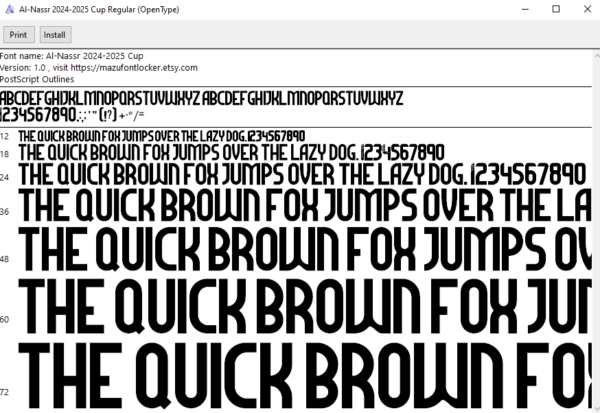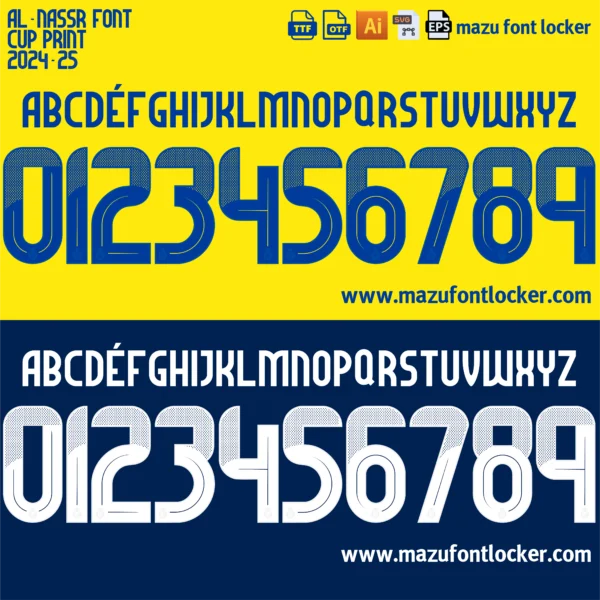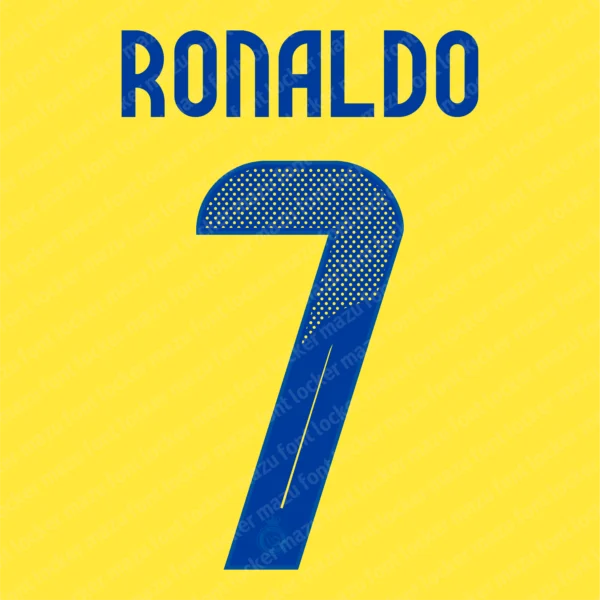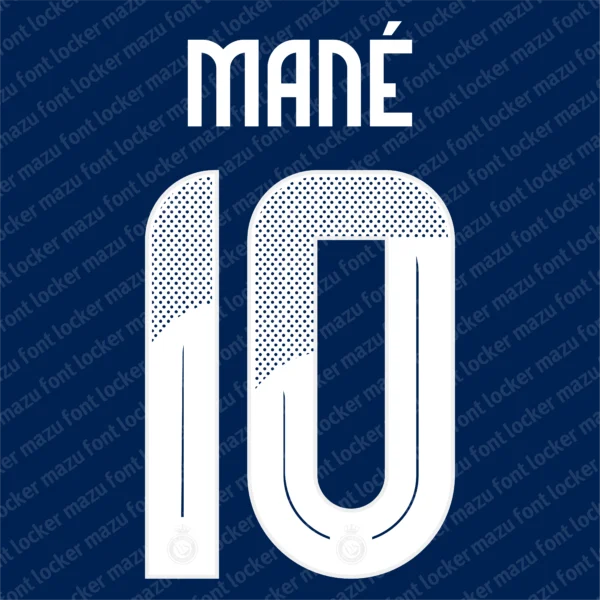
Al-Nassr 2024-2025 Font Vector – Epic Yellow Knights Masterpiece
Channeling the proud Al-Nassr spirit of the Ronaldo era, it features the legendary style worn by global stars like Cristiano Ronaldo, Sadio Mané, Brozović, and Al-Najei. Perfect for premium jersey mockups, football designs, and passionate Al-Nassr art.
Al-Nassr 2024-2025 Font Vector – Authentic Al-Alami Typeface
The Al-Nassr 2024-2025 Font Vector is a premium typeface that accurately recreates the official match lettering worn by Al-Nassr FC during the 2024-2025 season. This high-quality vector font kit captures the bold, modern, and dynamic typography that represents the club’s ambitious era in the Saudi Pro League.
Designed for professional designers and passionate Al-Nassr fans, the Al-Nassr 2024-2025 Font Vector delivers perfect authenticity for creating realistic jersey mockups, fan merchandise, matchday posters, social media graphics, and much more. It blends beautifully with the club’s iconic yellow and blue kits.
Why Choose Al-Nassr 2024-2025 Font Vector
This font stands out because of its sharp vector details and strong identity. Every letter and number is crafted to match the exact style used on the players’ shirts during the 2024-2025 season. Whether you are making realistic kit templates or modern football content, the Al-Nassr 2024-2025 Font Vector gives your designs that authentic Al-Alami look.
The letterforms in the Al-Nassr 2024-2025 Font Vector are tall, bold, and highly readable. The strokes have a strong yet refined weight with clean edges that look powerful on the back of jerseys while maintaining excellent clarity and Saudi elegance.
• Full uppercase A–Z and numbers 0–9 in authentic Al-Nassr 2024-2025 style
• Special Al-Nassr crest glyph for accurate shirt number detailing
• Create highly realistic Al-Nassr 2024-2025 home and away jersey mockups with accurate lettering
• Design stunning season posters, AFC Champions League graphics, and squad announcements
• Produce custom Al-Alami merchandise with a modern 2024-2025 football aesthetic
Al-Nassr in the 2024-2025 Era
Al-Nassr FC, famously known as the Al-Alami (The Global One), competed strongly in the Saudi Pro League and AFC Champions League during the 2024-2025 season. Led by star player Cristiano Ronaldo and supported by talents like Sadio Mané, Marcelo Brozović, and others, the club continued to chase domestic and continental success at Al-Awwal Park.